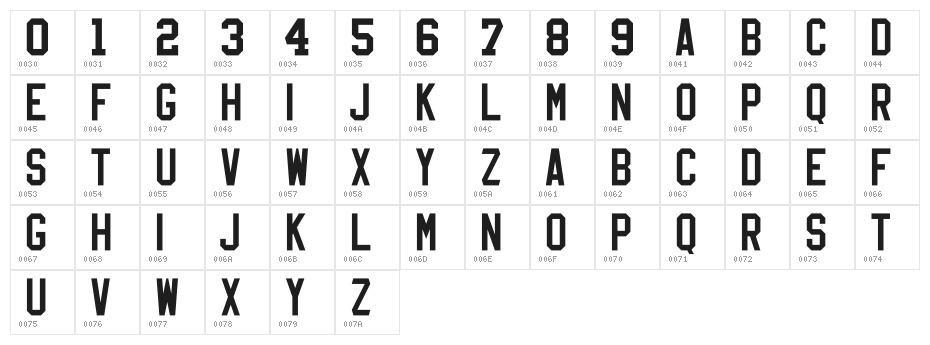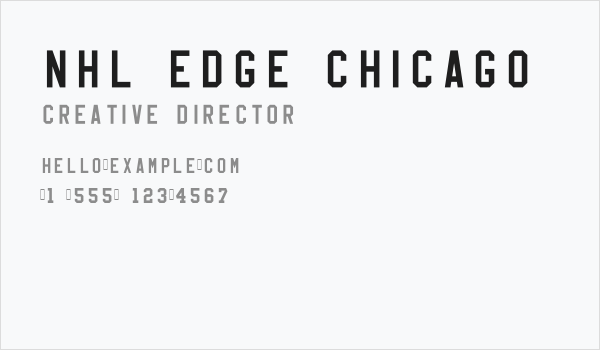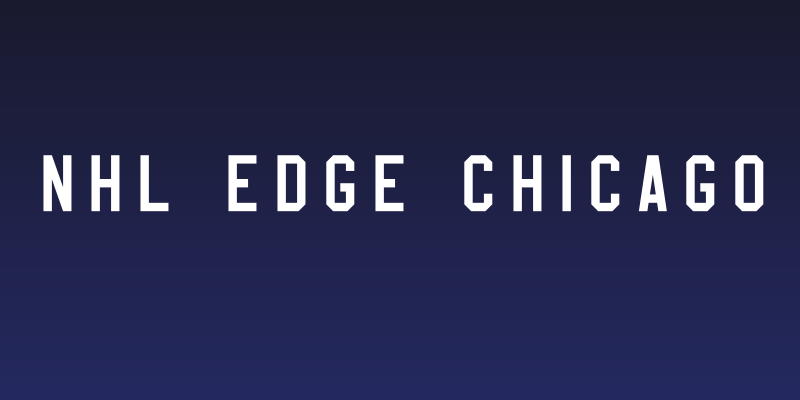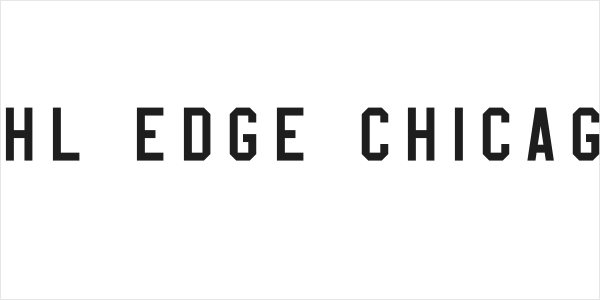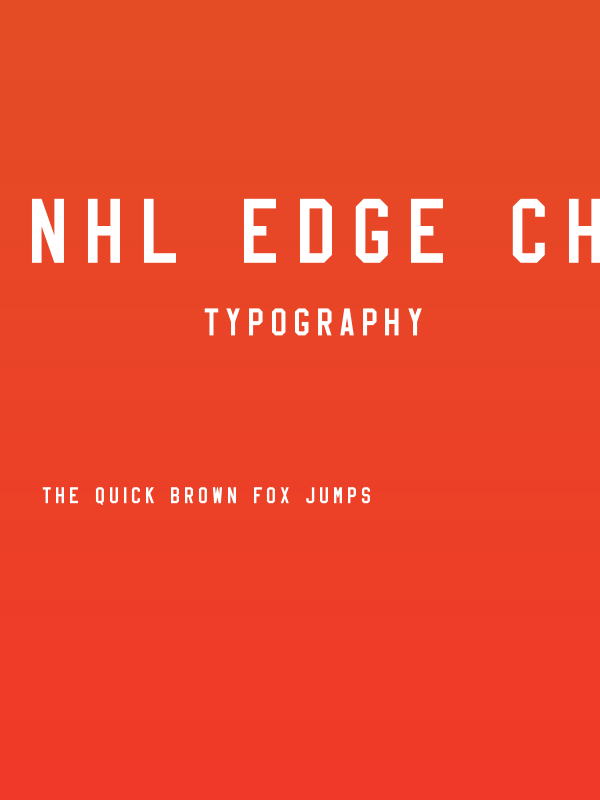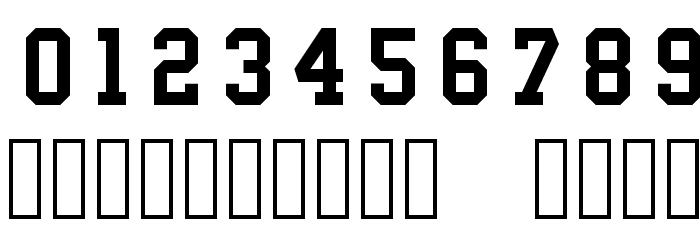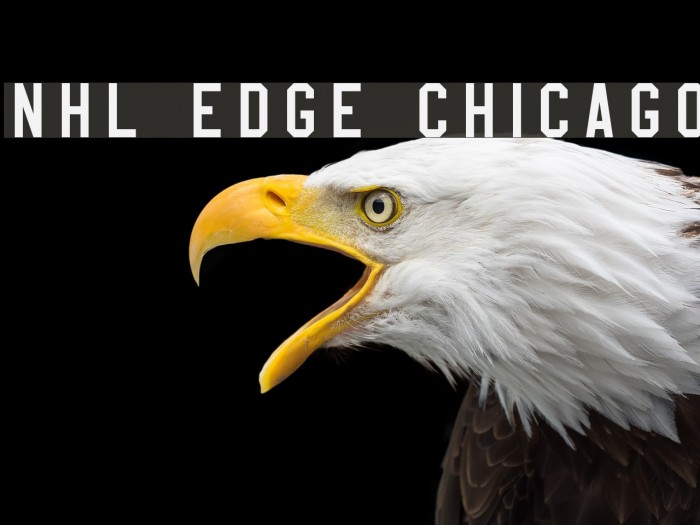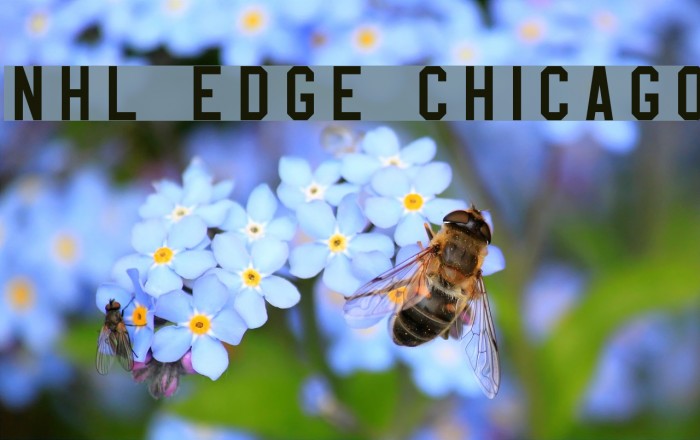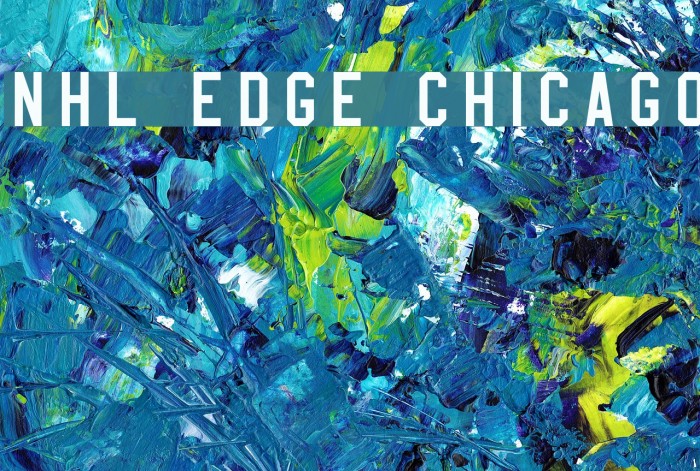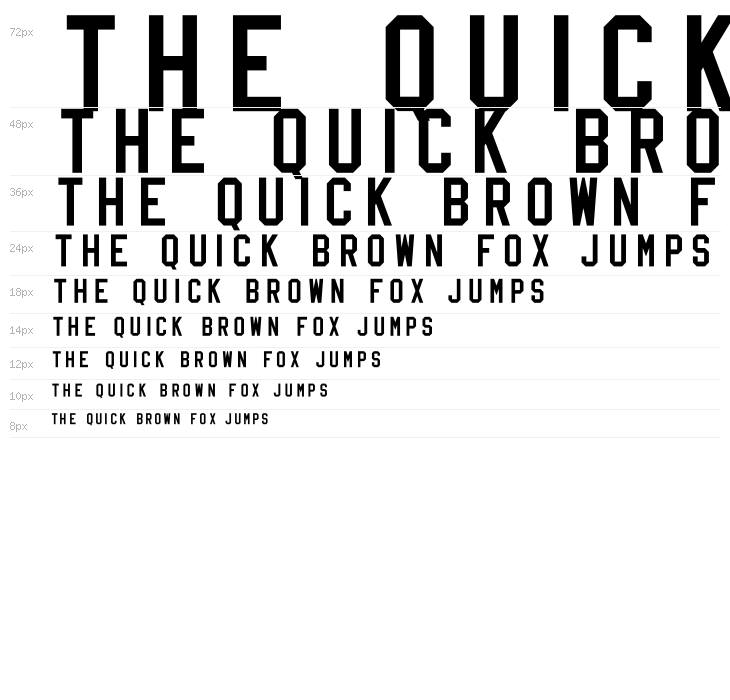
NHL Edge Chicago Font
NHL Edge Chicago Description
This font features a bold, geometric design with a strong presence. The characters are structured with sharp angles and straight lines, creating a modern and assertive look. The uppercase letters are uniform in height, while the numbers maintain a consistent style that complements the alphabet. The special characters are designed to match the boldness and geometric nature of the font, making it suitable for impactful and attention-grabbing designs. The overall style is reminiscent of sports or team branding, with a focus on clarity and strength.